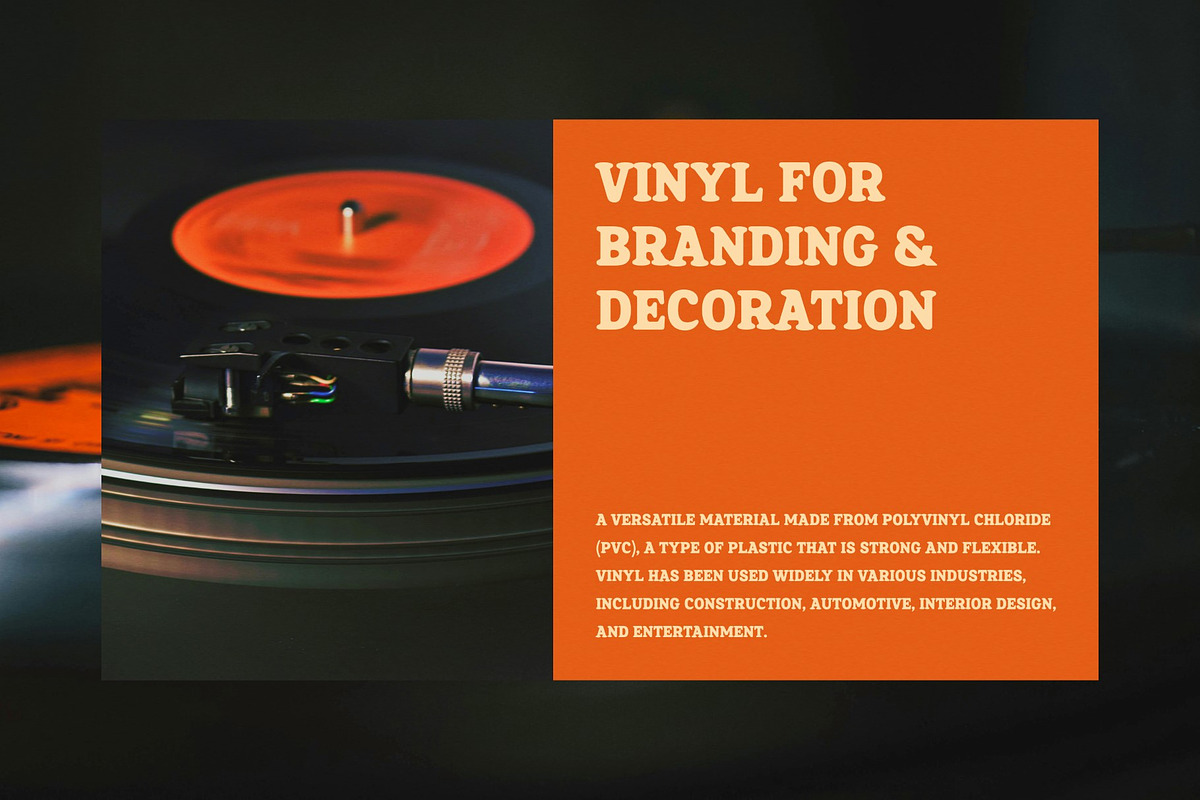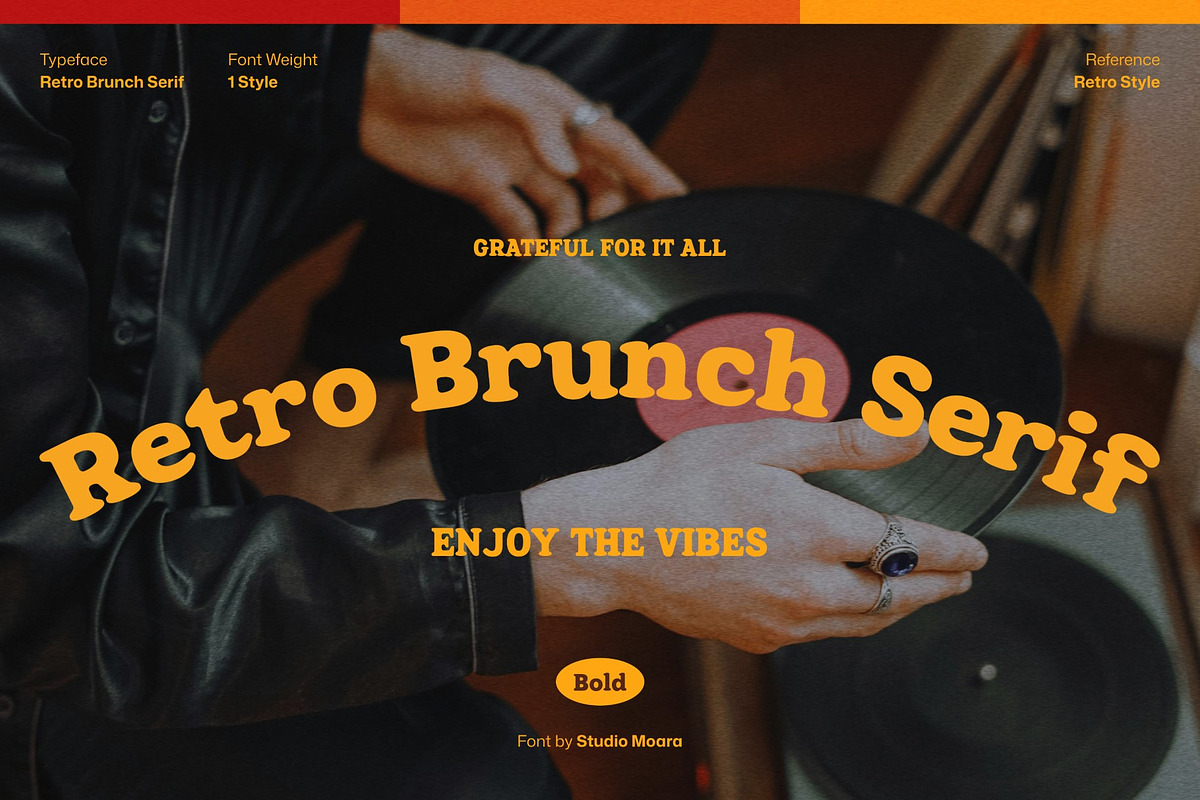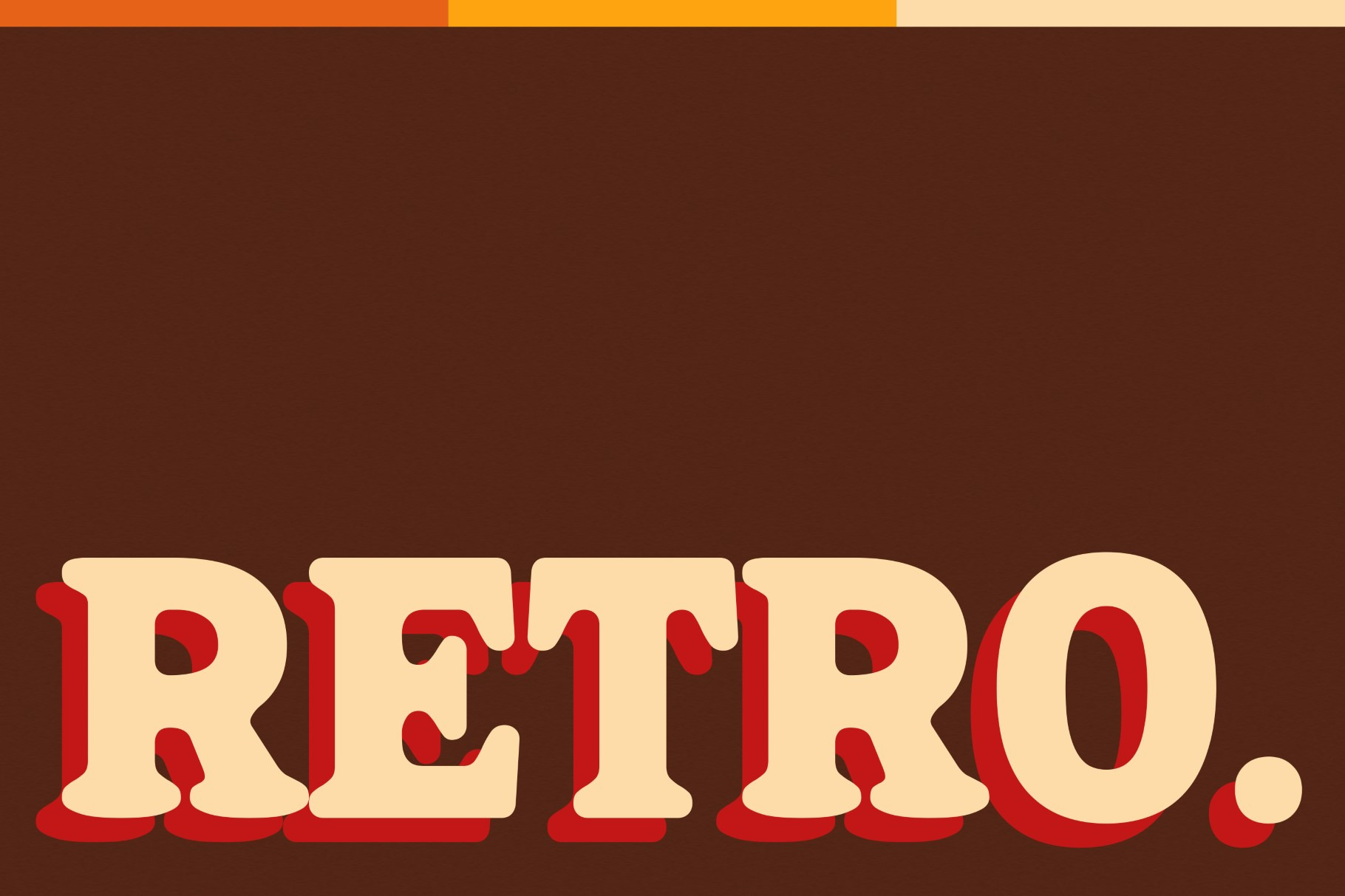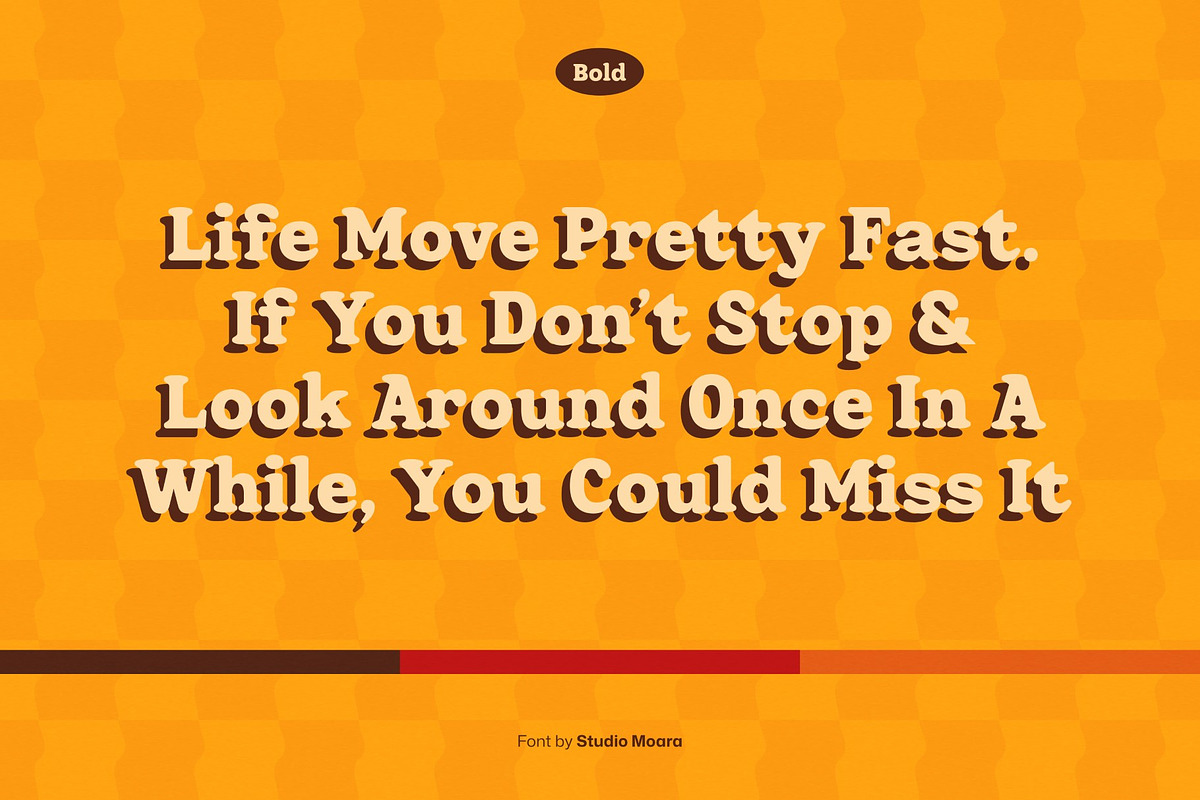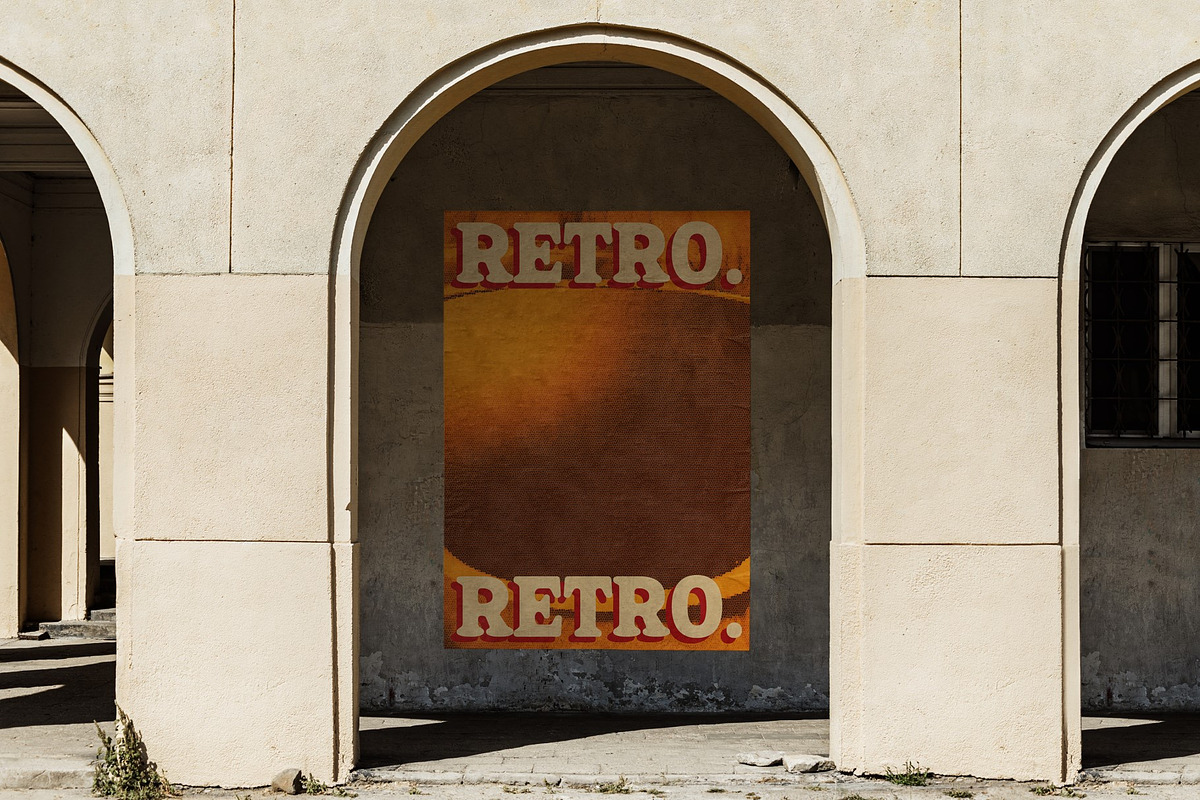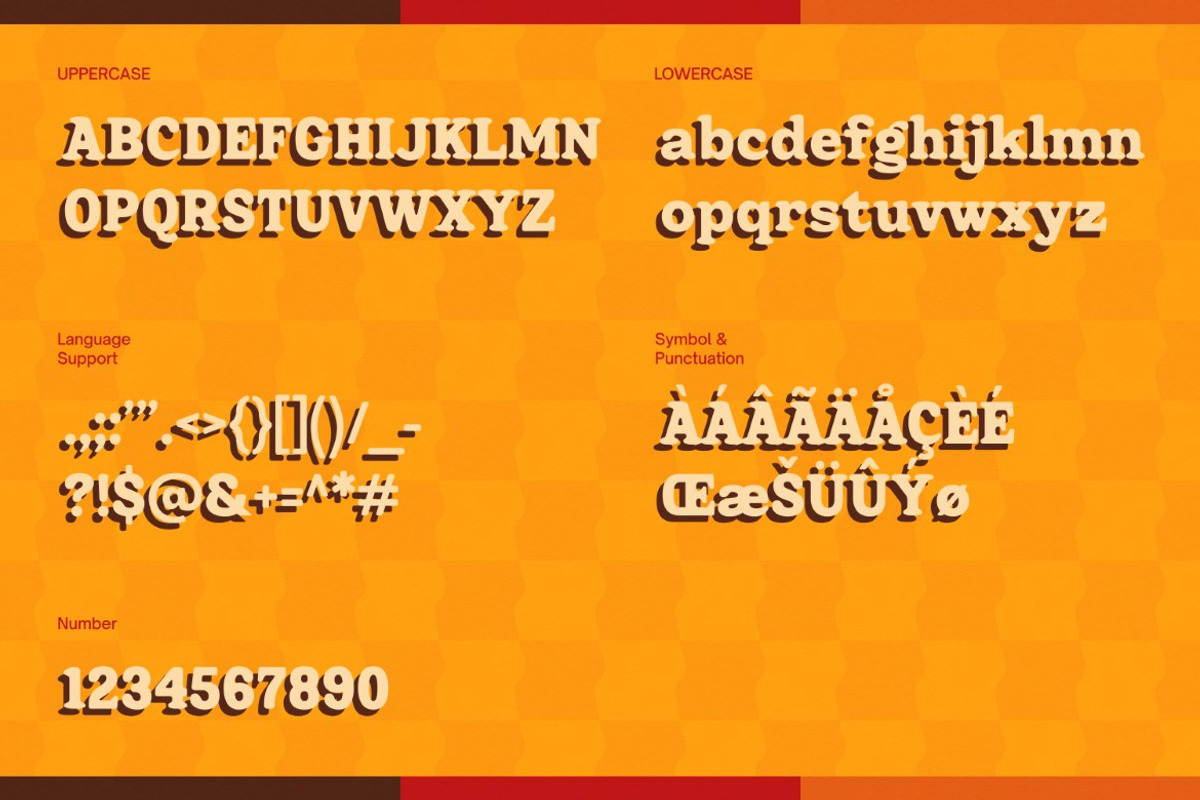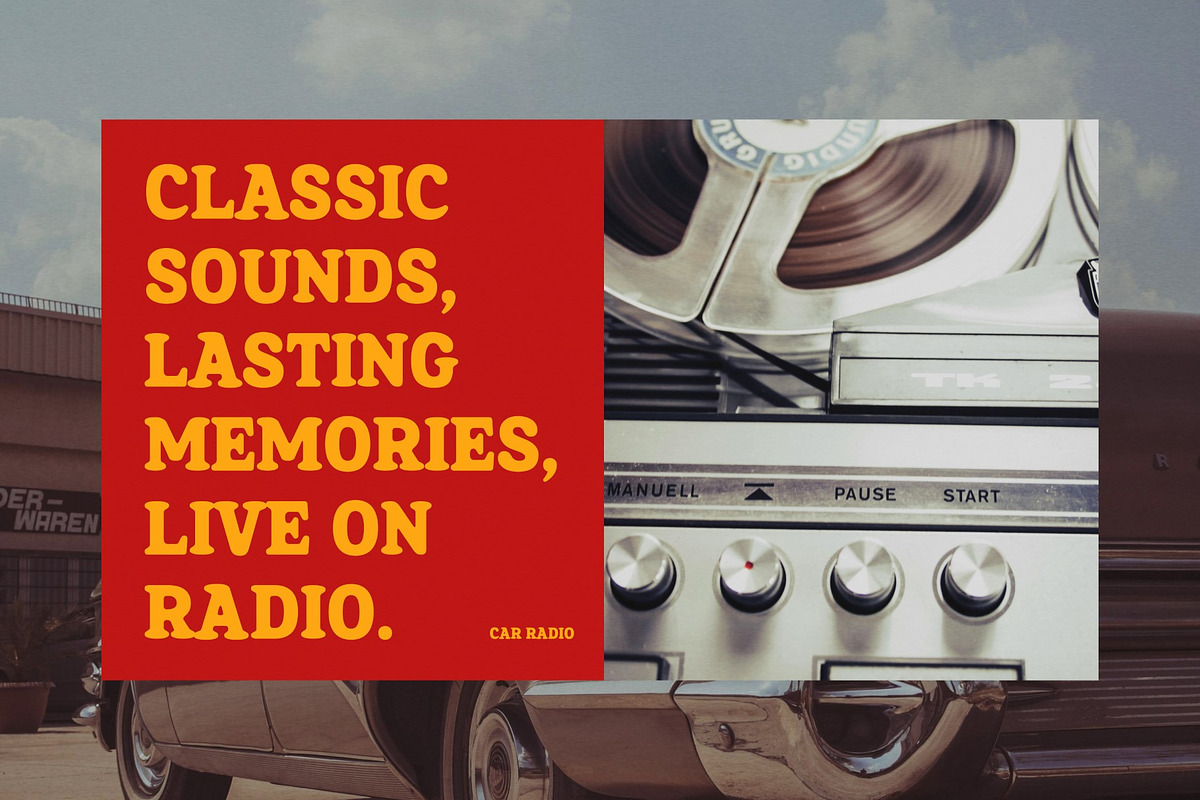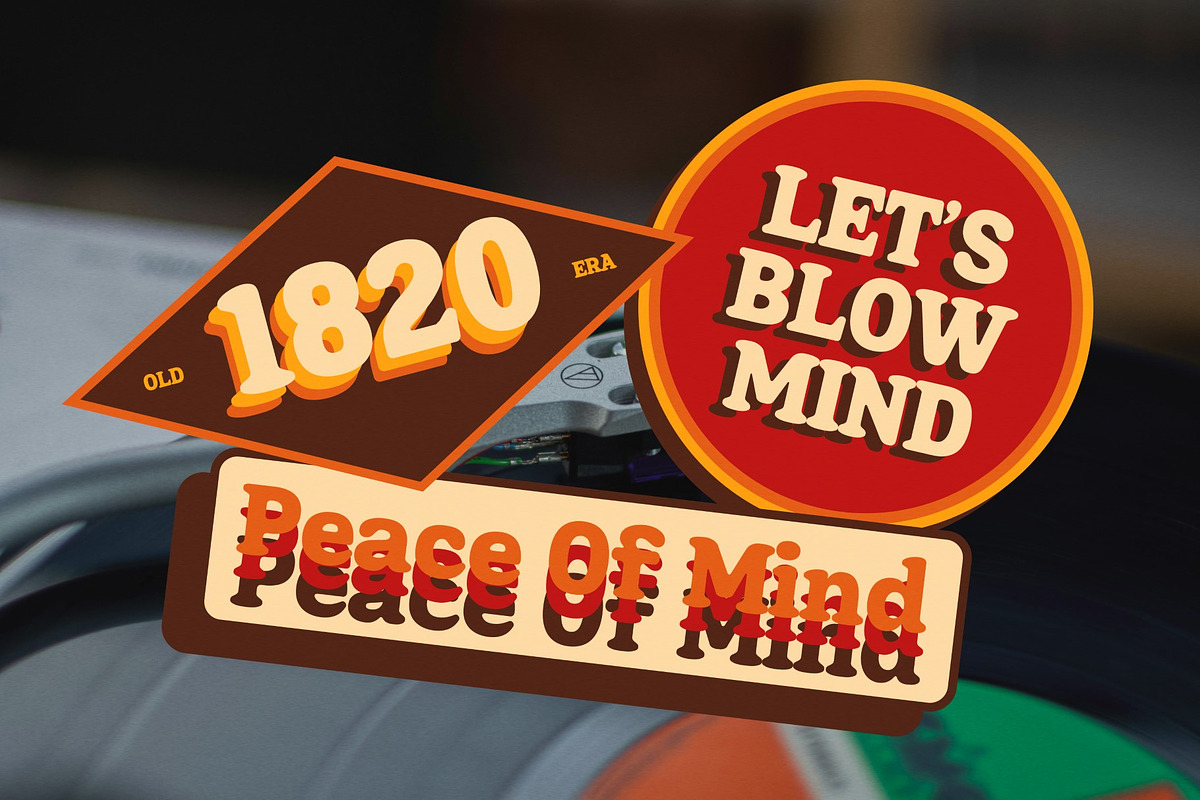
Retro Brunch Serif - Display Font
Step into a nostalgic feast of design with Retro Brunch Serif, the quintessential retro display font that serves up a heaping dose of vintage charm. This font effortlessly captures the essence of the past, making it ideal for retro-inspired projects, posters, and branding. With its timeless serifs and bold, distinctive characters, Retro Brunch Serif adds a touch of classic sophistication to any design. Elevate your creations and take a trip down memory lane with the deliciously stylish Retro Brunch Serif font.